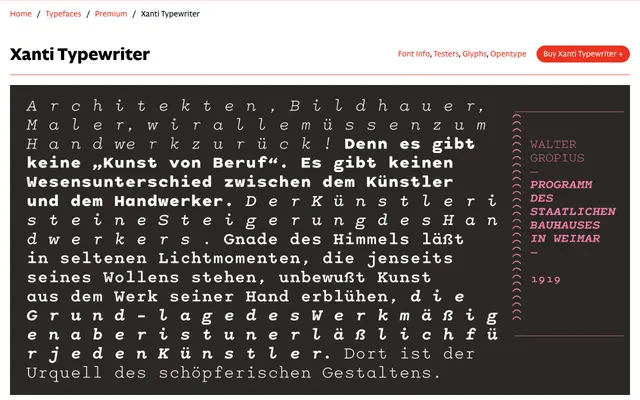
Xanti Typewriter
CAST · Gianluca Sandrone · 2020
Xanti Typewriter specimen from CAST
A nine-weight monospaced family drawn from Xanti Schawinsky's 1930s Olivetti logo, with serifs that dissolve as weight increases.
Designed by Gianluca Sandrone and produced between 2020 and 2021, the family takes its formal starting point from the geometric logo Schawinsky created for Olivetti in the mid-1930s. Eight weights from Hairline to ExtraBold each come with a matching italic, and the progressive loss of serifs through the weight range is a deliberate structural decision rather than an afterthought. OpenType features include lining and old style figures, slashed zero, alternate letterforms and a variable font version, making it suitable for coding environments, editorial work and packaging alike.
A fixed-width typeface with geometric Bauhaus construction; serifs disappear progressively as weight increases, placing it firmly in the monospaced geometric tradition.